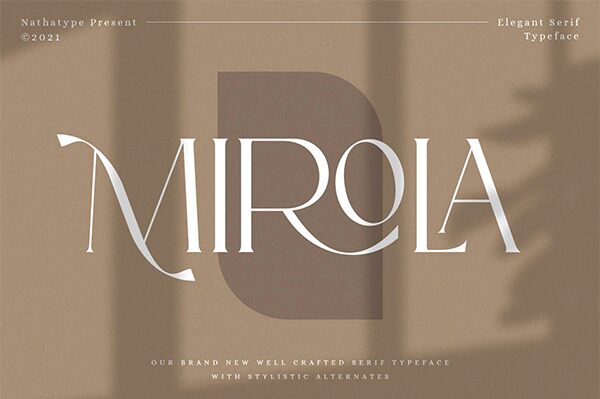
Mirola Personal Use
Mirola is a vintage serif font designed by Donis Miftahudin with a light weight that adds a classic, yet modern touch to any project. It is perfect for creating logos, headlines, and packaging designs with an elegant vintage feel.
Mirola is a serif used in modern styles. It fits your designs. Its effortlessly beautiful and undoubtedly gorgeous. Its brave to face uncertainty. These all represent you. Go ahead and use it on your websites, social media brandings, Pinterest banners, printed invitations, and more!